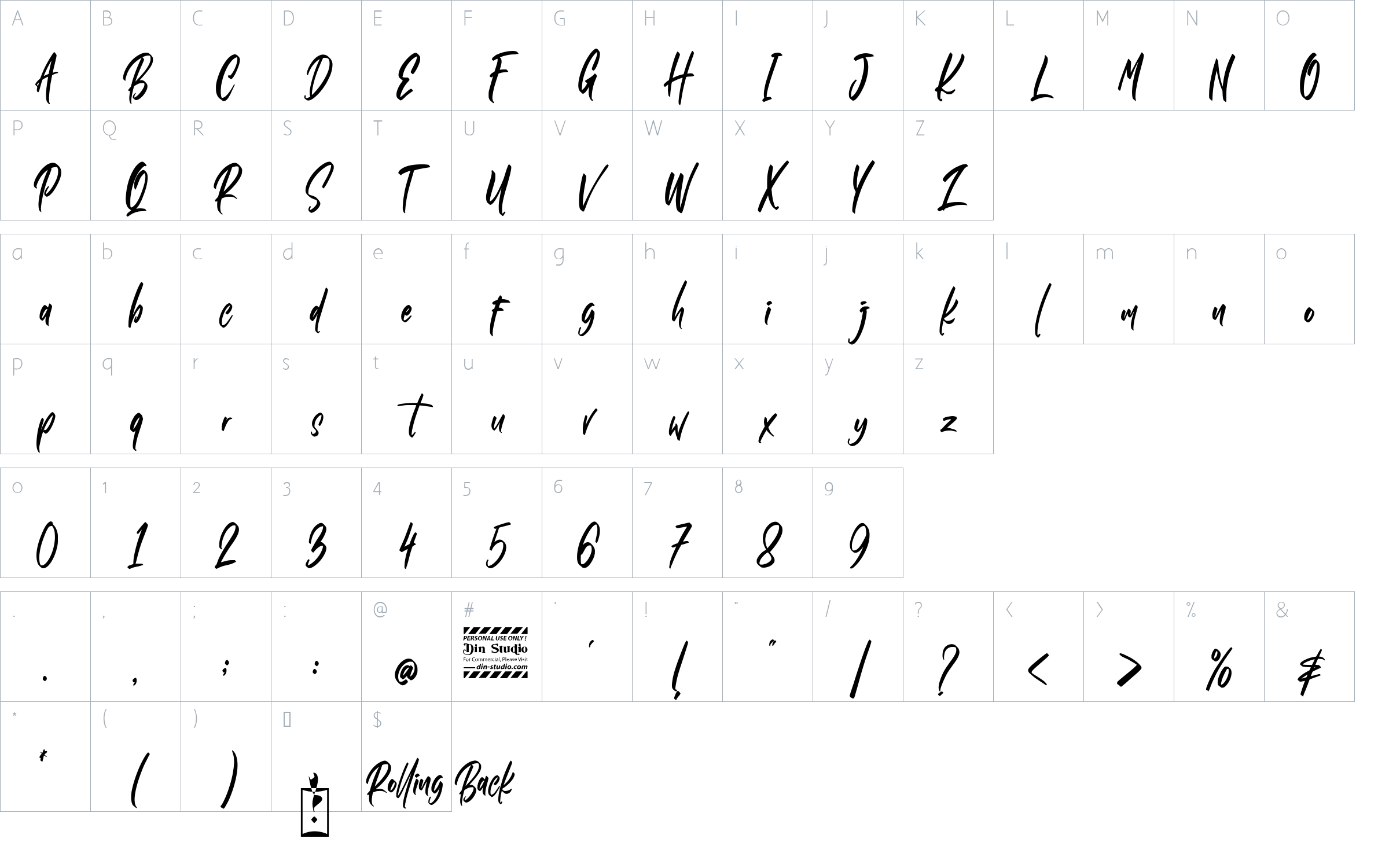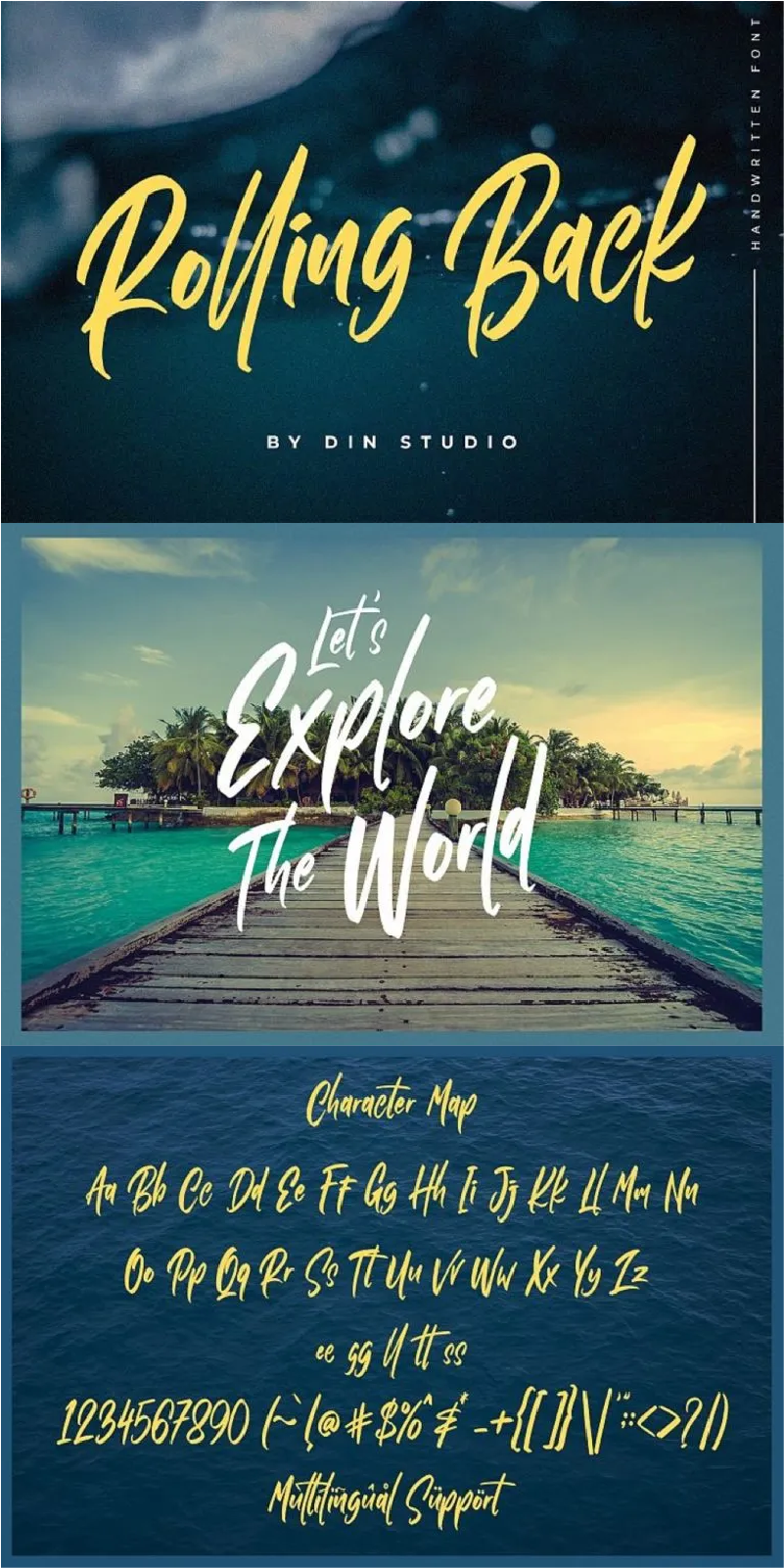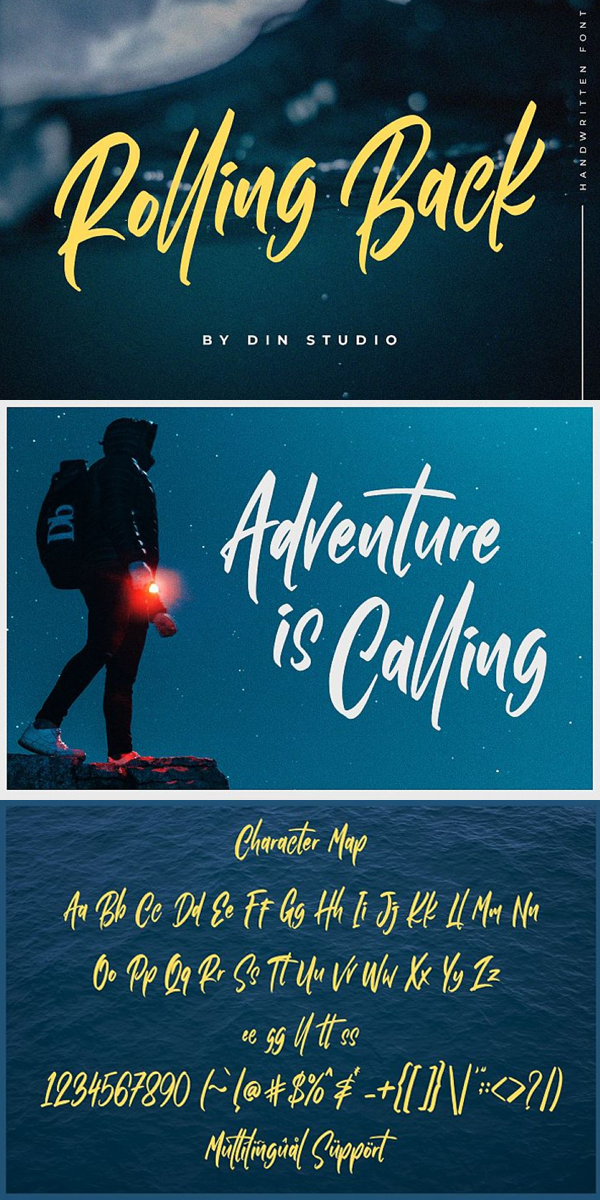
Rolling Back Font
About Rolling Back
Rolling Back – A Handwritten Font
Rolling Back is a gorgeous font, designed with a modern vibe. This handwritten font is perfect for anything adventurous and direct. Every stroke and curve was created to entice happiness and elegance. A real head-turner for your presentation, designs, branding, quotes, invitation, website illustrations, and much more.
Our font always includes Multilingual Support to make your branding reach a global audience. Inspire your audience, clients, or guests with this beautiful, statement font. See the previews above to get some inspiration on how you can use them.
-Beautiful ligatures